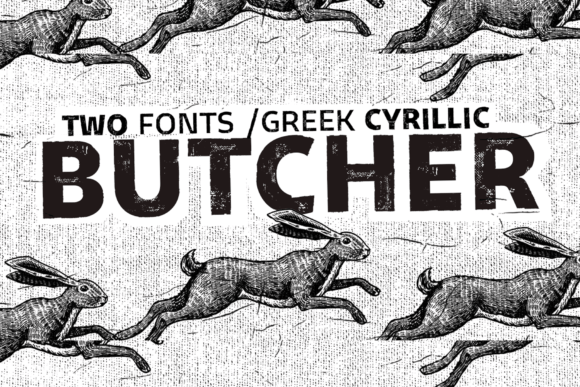
The Perfect Cut: Unleashing the Power of Butcher Font
Imagine you’re brainstorming a new design project and you need that perfect, eye-catching font to bring your vision to life. You scroll through font libraries, and suddenly, you stumble upon a retro-style display font that screams “use me!” That’s exactly what happens when you lay eyes on Butcher Font.
Butcher Font is more than just a stylish addition to your projects – it’s a versatile tool that can be used across a wide range of applications, from branding and advertising to digital and print media. With its unique blend of modern and vintage flair, Butcher Font is an invaluable asset for designers looking to add a touch of personality to their work.
Butcher Font Key Features
- Font Family: Butcher is a sans-serif font family designed for use in editorial, publishing, and advertising contexts.
- Character Count: Includes a comprehensive set of characters, including uppercase and lowercase letters, numbers, punctuation, and special characters.
- Unique Characteristics: Butcher’s distinctive features include its clean and modern aesthetic, geometric shapes, and a subtle warmth that makes it suitable for both print and digital applications.
Designer Review: Butcher Font
Overall, I’d say the Butcher Font is a decent addition to any designer’s toolkit. Here are some things that I think work well:
- ✨ The font’s bold, rugged aesthetic is perfect for creating a meaty, industrial vibe in designs.
- ✨ The font is highly customizable, allowing designers to adjust the weight, width, and even the individual letters to suit their needs.
- ✨ The font includes a wide range of language support, making it a great option for global brands.
- ⚠️ The font can be a bit difficult to read in smaller sizes, especially for long blocks of text.
- ⚠️ The font’s weight and width options can sometimes make it look a bit inconsistent, especially when used in combination with other fonts.
Overall, I’d give the Butcher Font 3.5 out of 5 stars. It’s a solid choice for designers looking to add some edge to their designs, but it may not be the best option for projects that require a lot of text or a high level of consistency.
The Butcher font is commonly used in:
- Restaurants and cafes to create a rustic or vintage atmosphere.
- Wedding invitations and decorations to add a touch of elegance.
- Food and beverage branding to convey a sense of tradition and heritage.
To get the most out of the Butcher font, try:
- Pairing it with other distressed or vintage fonts for a unique look.
- Using it in combination with images or graphics to create a visually appealing design.
Alternatives to Butcher Font
Montserrat is a sans-serif font designed for digital media. It’s a great choice for designers who want a clean, modern look without the distressed feel of Butcher Font. Montserrat is more versatile and can be used for a wide range of applications, from body text to headlines.
Comparison: Montserrat is more refined and polished than Butcher Font, making it suitable for corporate or professional designs. It lacks the rough, industrial feel of Butcher Font, but is more readable and easier to use in long blocks of text.
Playfair Display is an elegant, high-end font ideal for luxury brands or high-end designs. It features a classic, sophisticated look that is reminiscent of traditional typography. While it’s not as distressed as Butcher Font, it has a similar level of sophistication and refinement.
Comparison: Playfair Display is more formal and less edgy than Butcher Font, making it suitable for high-end designs or brands that want to convey a sense of luxury and sophistication. It’s not as versatile as Montserrat, but is perfect for creating a sense of drama and elegance.